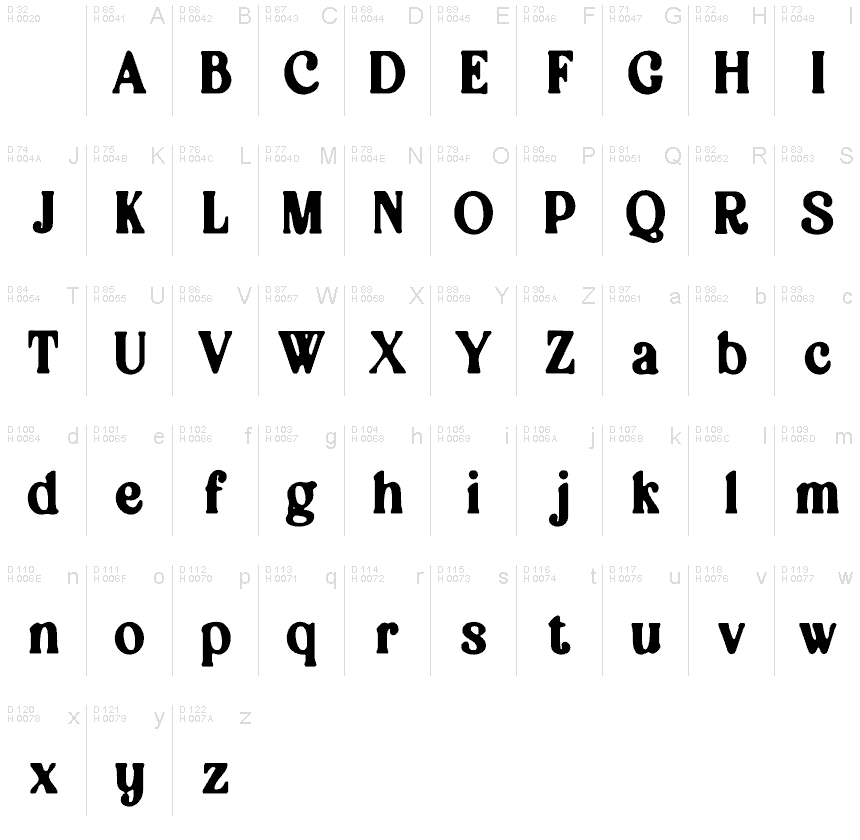
Guavine Blur font by Craft Supply Co. is a bold vintage serif font full of expressive and engaging character. It is packed with retro vibes yet modern enough for contemporary applications. Its artistic flair makes it suitable for brands that want to get more attention.
This free serif font is an excellent addition to your branding and packaging projects. Other great use cases include business cards, posters, movie titles, social media posts, magazines, newspapers, book covers and more professional/personal projects.